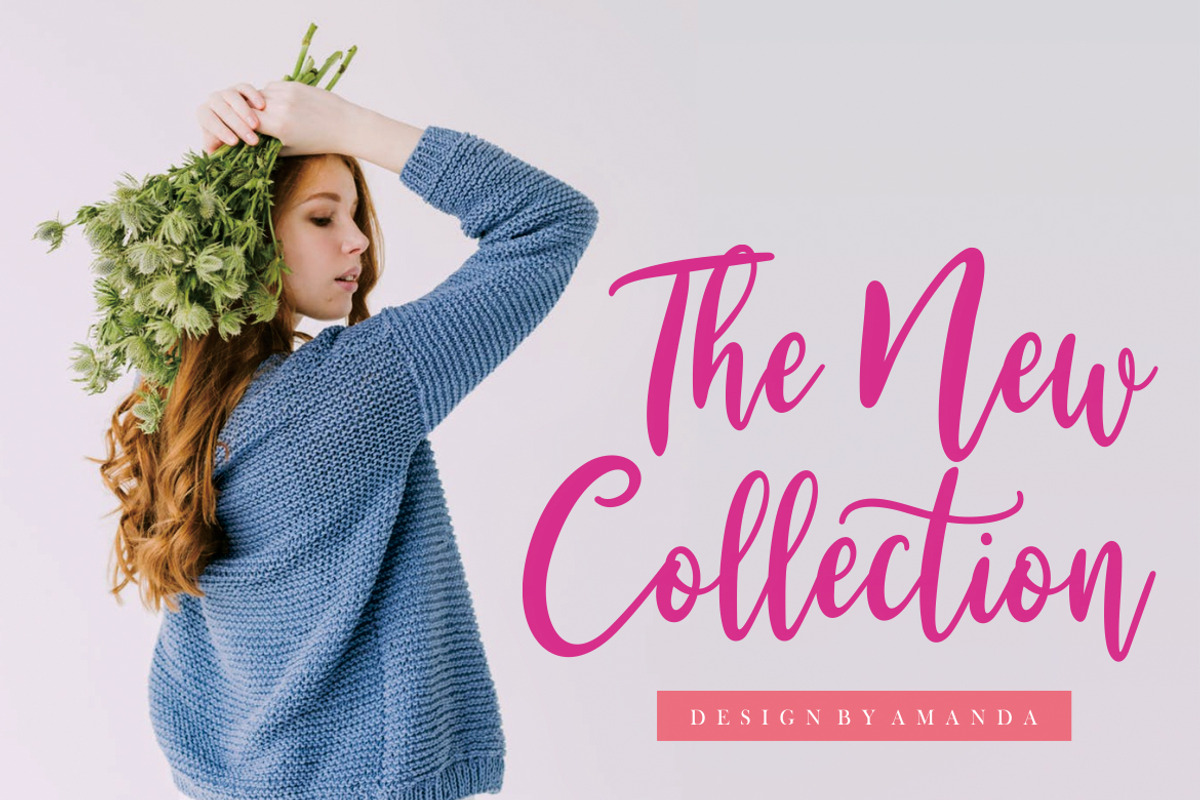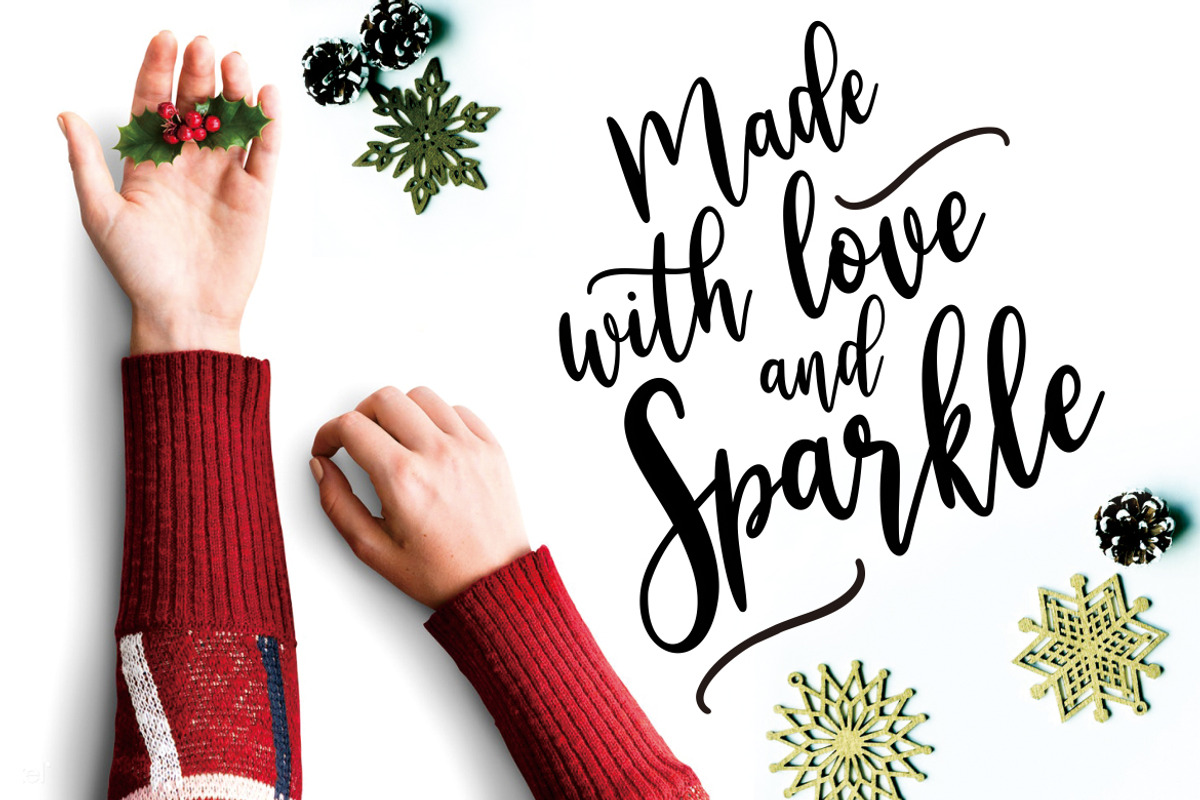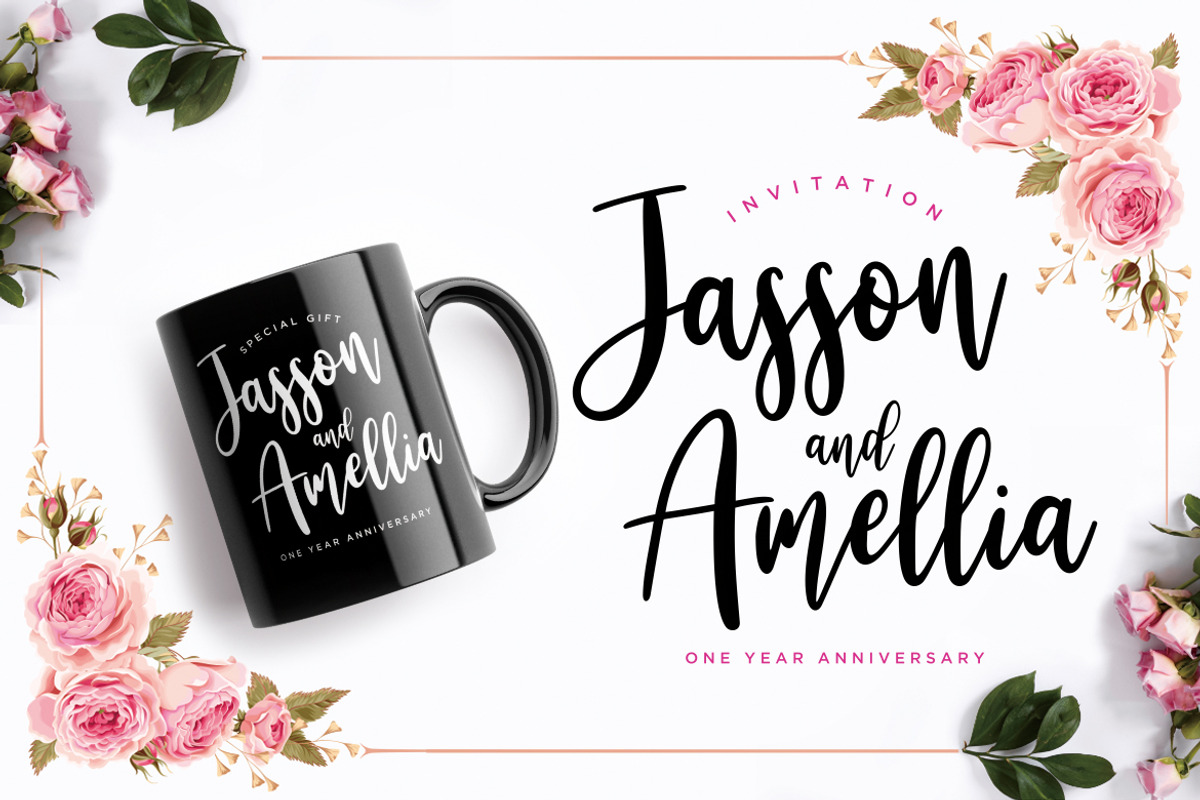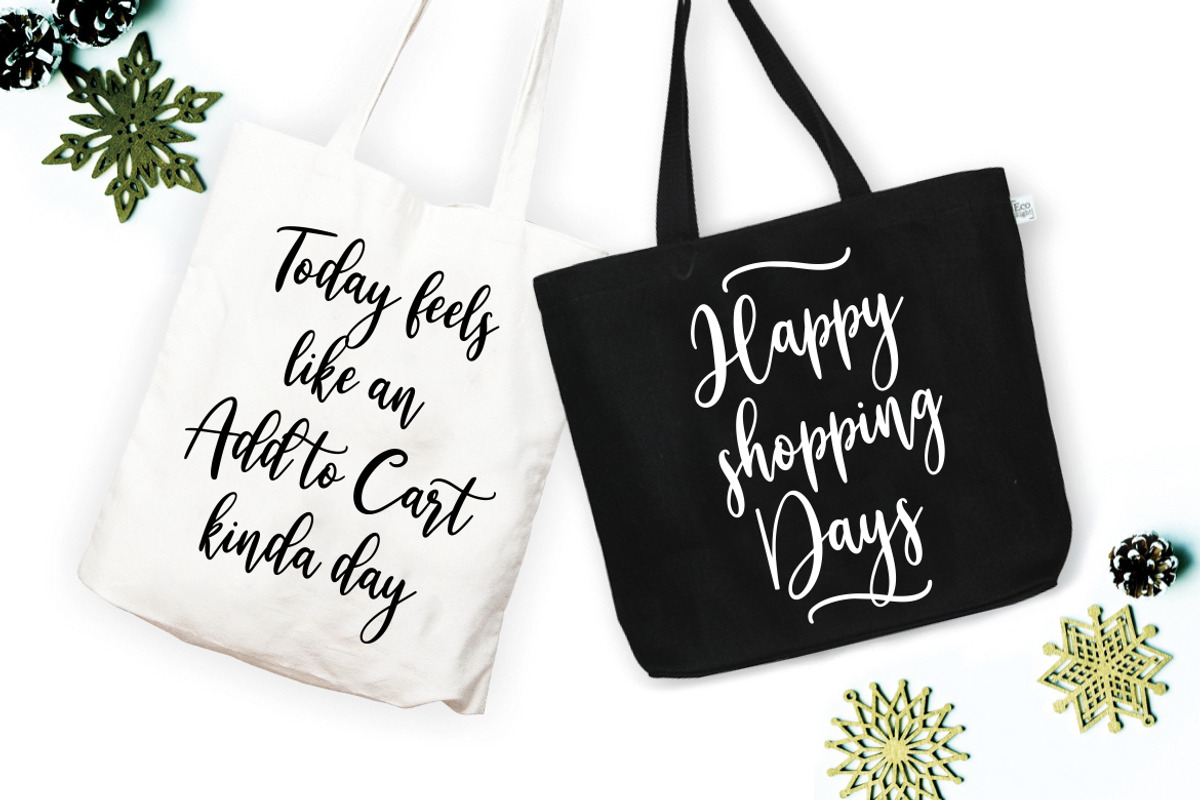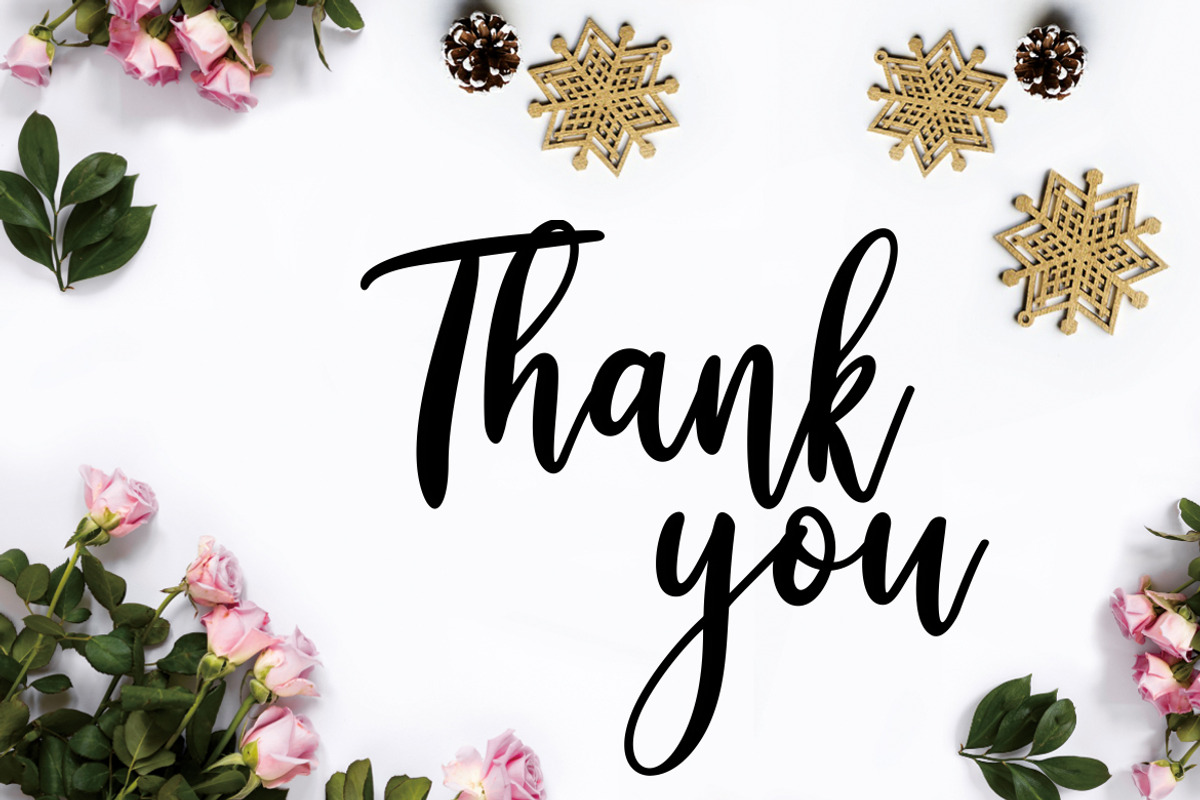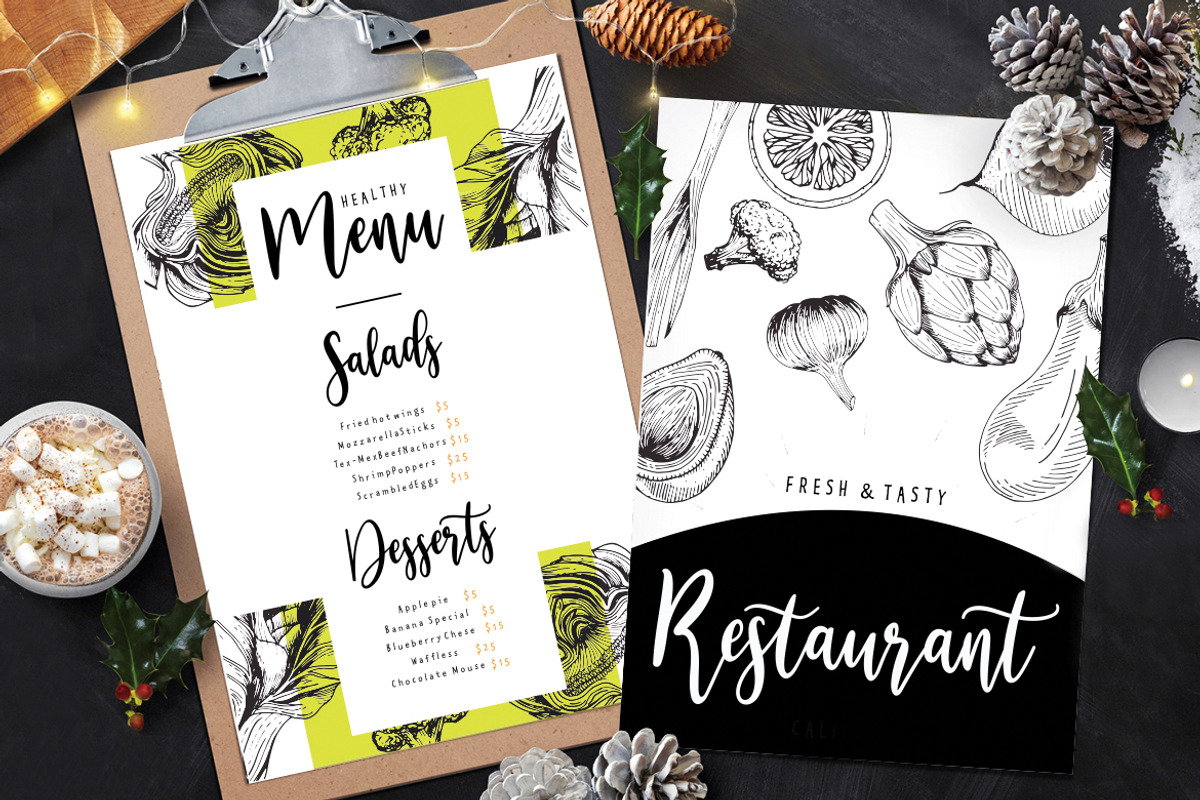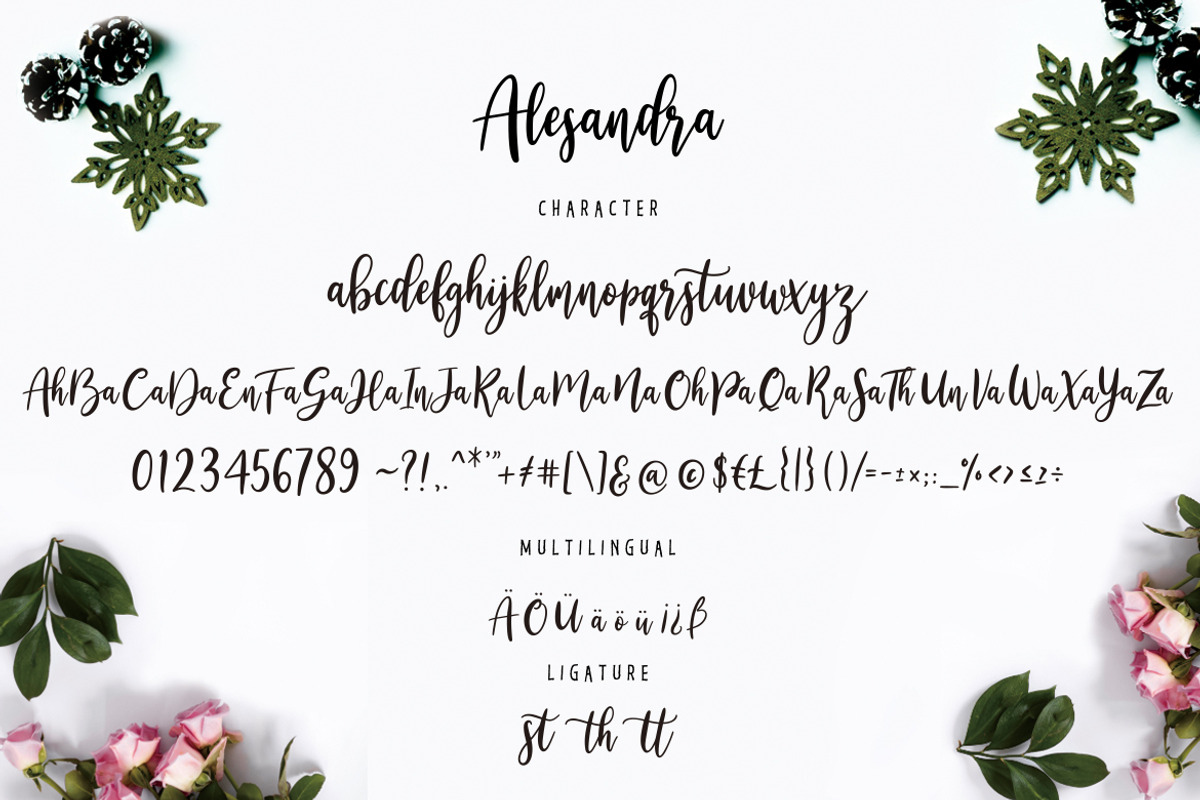
Alesandra Calligraphy Business Font
Alesandra is a fresh calligraphy & new modern font with a touch of elegance and modernity for any awesome projects.
Alesandra is perfect for branding projects, logo, wedding designs, social media posts, advertisements, product packaging, product designs, label, photography, watermark, invitation, stationery and any projects that need handwriting taste.
- Fonts include multilingual support for; ä ö ü Ä Ö Ü ß ¿ ¡
Alesandra Calligraphy Business Font by Creatype Studio fits naturally into Branding, posters, packaging, typography.